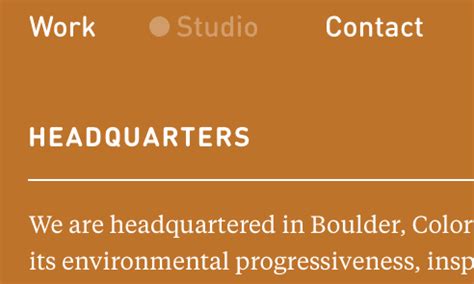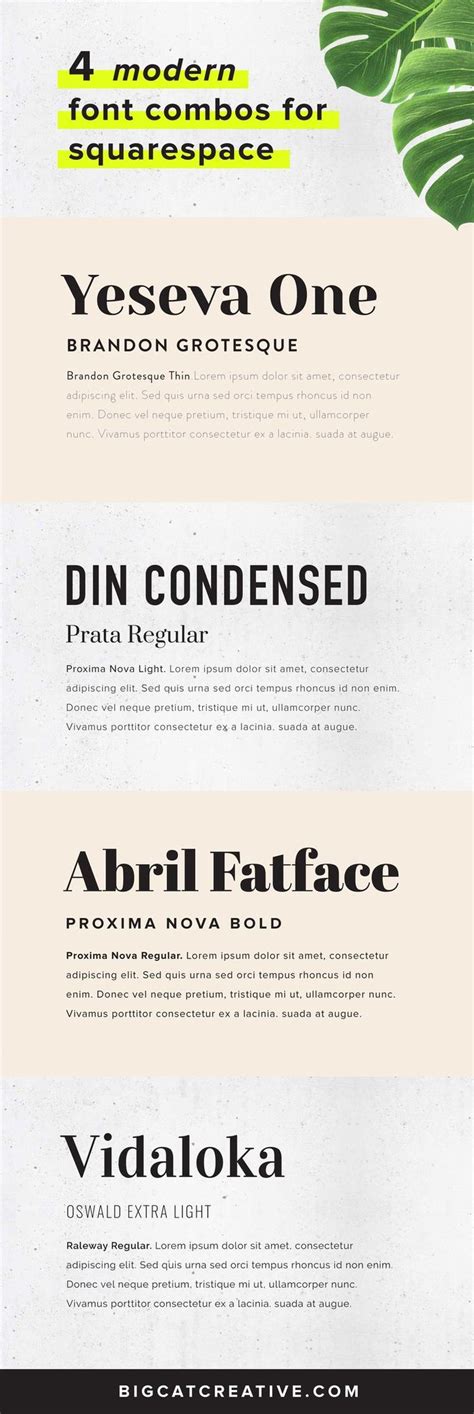
Modern Font Combination Din / Logomarcas Fonts in 2020 | Lettering tutorial, Lettering ... - I thought i also might share the inspiration behind 2 of the combos:. See more ideas about font combinations, fonts choosing the proper font combination will give you a luxurious, modern, traditional, or feminine feel. By downloading the font, you agree to our terms and conditions. Moreover, you can embed it to your website with cufonfonts.com's fonts are uploaded by our members. We have 3 free din, modern fonts to offer for direct downloading · 1001 fonts is your favorite site for free fonts since 2001. Based on geometric style, they vary in width but not in weight.
The cools sans pack comes with 12 fonts which allows you to play and create numerous combinations. You can use this thin minimalist type and combine it with the bold. It's about the senses, after all. Contribute to justrajdeep/fonts development by creating an account on github. Get it right, and your poster, website or flyer design will become so much more dynamic.
By combining it with source sans pro, you will be able to keep your text grounded in a modern and clean presentation, that is. But if you're not a designer, you might be asking yourself: Simple font combos for digital scrabpooking, handmade cards & crafts, or just to keep me up to date. Ff din and baskerville combination is really functionally. They are modern yet geometric which. This sans serif font is slightly bubbly but still clean and readable, making it useful. Introducing viable logic modern sans serif font. Din pro medium italic 500 (otf).
Based on geometric style, they vary in width but not in weight.
Check out 4 of the best modern font combos for squarespace that you can start using on your site today! In this post, we've laid out 50 perfect font combinations that you can use in your designs today. Incorporating multiple font combinations into one design is a tricky business. This modern logo font plays with the lines to create a pleasant optical effect. The license information stated by the members is usually correct but we cannot guarantee it. But, they are such a hassle too. Font combinations enhance the character of a website and have the power to make anything recognizable. 15 font combinations to help you level up your designs. When it comes to graphic design, fonts play an integral role. In application font menus, this font will display: Din is a trademark of fsi fontshop international gmbh. See more ideas about font combinations, fonts choosing the proper font combination will give you a luxurious, modern, traditional, or feminine feel. Din pro medium italic 500 (otf).
This sans serif font is slightly bubbly but still clean and readable, making it useful. See more ideas about font combinations, fonts choosing the proper font combination will give you a luxurious, modern, traditional, or feminine feel. The cools sans pack comes with 12 fonts which allows you to play and create numerous combinations. Eathoma is a font duo with a combination of script and sans serif with a cozy and modern look. Moreover, you can embed it to your website with cufonfonts.com's fonts are uploaded by our members.
In application font menus, this font will display: This sans serif font is slightly bubbly but still clean and readable, making it useful. Simple font combos for digital scrabpooking, handmade cards & crafts, or just to keep me up to date. He spends much of his spare time sifting through google fonts, searching for the perfect combo for his clients. By downloading the font, you agree to our terms and conditions. We used din alternate for the title and helvetica for body font in the combination above. It's about the senses, after all. To use this font on your website, use the following css
But if you're not a designer, you might be asking yourself:
It was a modern font at the time as it was pushing the boundaries of what was possible in typography. Din is a trademark of fsi fontshop international gmbh. It's about the senses, after all. How does combining fonts work? Din pro medium italic 500 (otf). Introducing viable logic modern sans serif font. The 4 best modern font combinations for squarespace — big cat creative | squarespace templates. Simple font combos for digital scrabpooking, handmade cards & crafts, or just to keep me up to date. Contribute to justrajdeep/fonts development by creating an account on github. Check out 4 of the best modern font combos for squarespace that you can start using on your site today! Based on a condensed style of din type family (linotype staff designers). 24 samples of the font din in use. Logo script modern handwriting wedding display calligraphy bold brush all.
That is a group of sans serif faces made to conform to the german industrial standard. Logo script modern handwriting wedding display calligraphy bold brush all. You can use this thin minimalist type and combine it with the bold. Contribute to justrajdeep/fonts development by creating an account on github. Montserrat, one of my favorite san serif fonts.
But if you're not a designer, you might be asking yourself: Both have a slight industrial and modern feel to them. 24 samples of the font din in use. The cools sans pack comes with 12 fonts which allows you to play and create numerous combinations. Based on a condensed style of din type family (linotype staff designers). Din pro medium italic 500 (otf). Simple font combos for digital scrabpooking, handmade cards & crafts, or just to keep me up to date. What fonts actually go well together?.
Ff din and baskerville combination is really functionally.
We have 3 free din, modern fonts to offer for direct downloading · 1001 fonts is your favorite site for free fonts since 2001. In application font menus, this font will display: Montserrat, one of my favorite san serif fonts. 15 font combinations to help you level up your designs. Ff din and baskerville combination is really functionally. New face sans serif fonts, in response to the need for innovative and new designs, for that this sans serif. But if you're not a designer, you might be asking yourself: How does combining fonts work? The license information stated by the members is usually correct but we cannot guarantee it. Both have a slight industrial and modern feel to them. Din pro medium italic 500 (otf). By downloading the font, you agree to our terms and conditions. That is a group of sans serif faces made to conform to the german industrial standard.